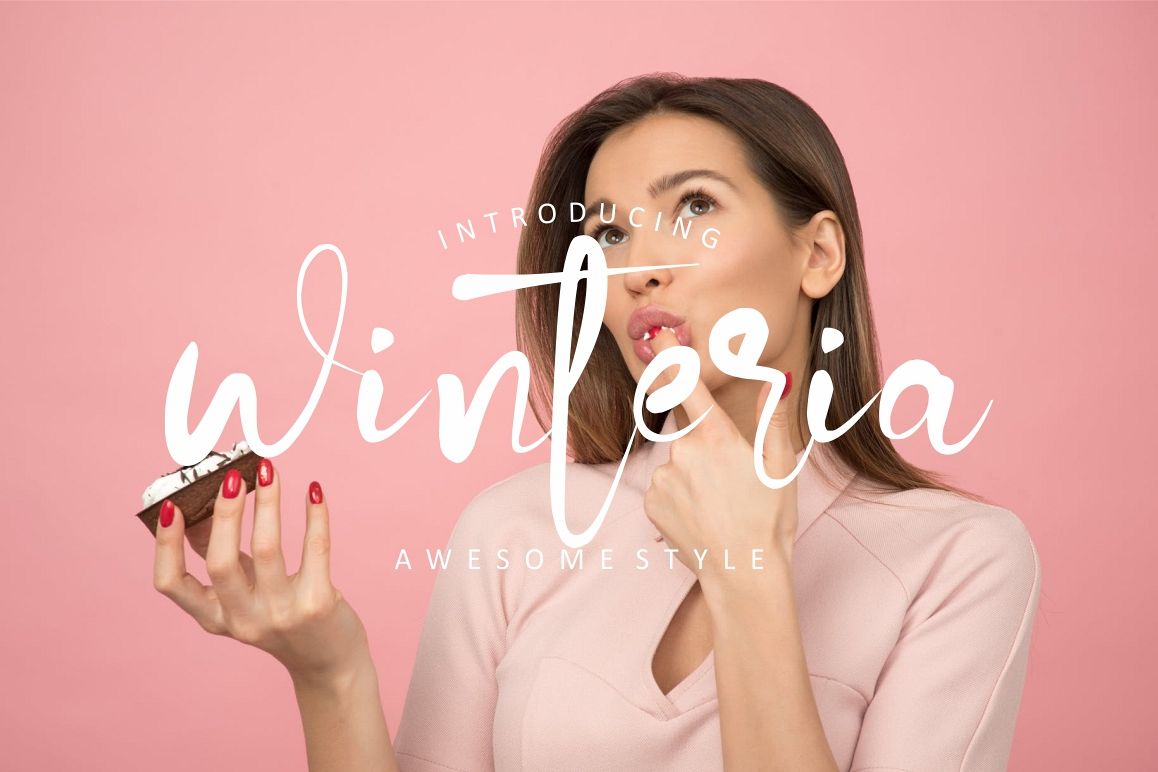
winteria
Say hello to Winteria - A font that you were meant to find, and is now destined to be with you :) An elegant cousin of Winteria Script, Winteria is a lovingly handwritten brush script , with an air of grace and flamboyancy.
The Winteria Font is the great choice for watermark on magazine, logo design, quotes, album cover, business card, and many other design project., Winteria is here to elevate your work to the highest levelWhat is include :